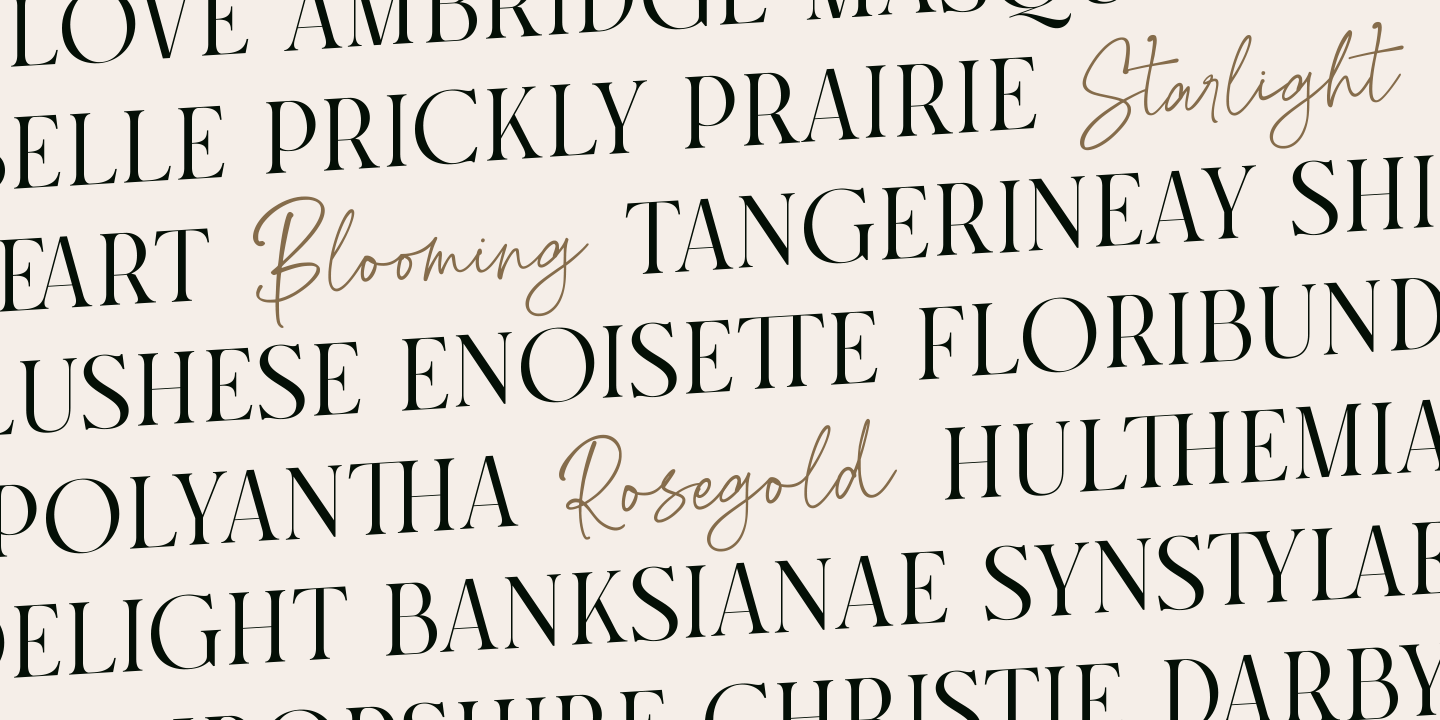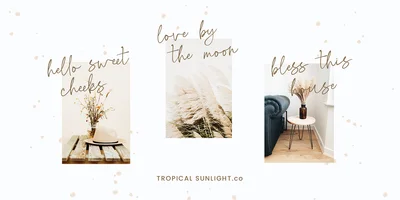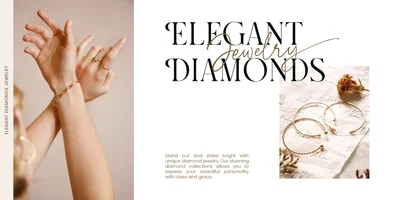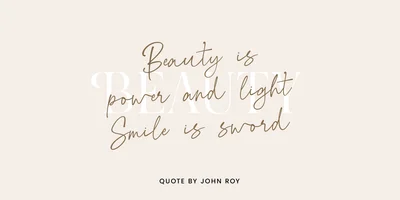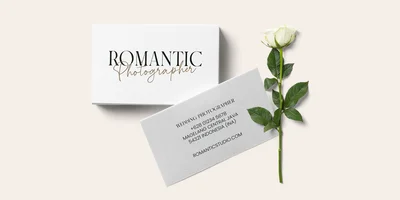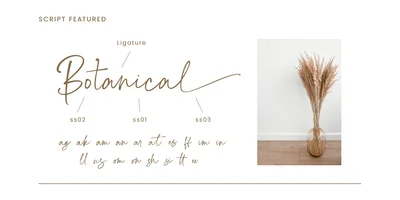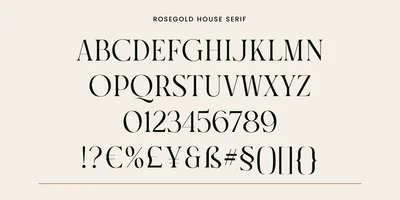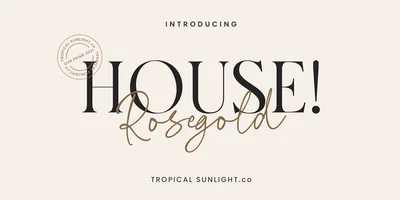
House Script vs Monterey
House Script and Monterey are both display typefaces sharing a script foundation. Where House Script leans branding, Monterey brings modern. Compare which suits your Branding project.
Recommended: House Script
- branding design character
- Suited for Packaging and Display
Consider: Monterey
- modern design character
- Suited for Modern and Friendly